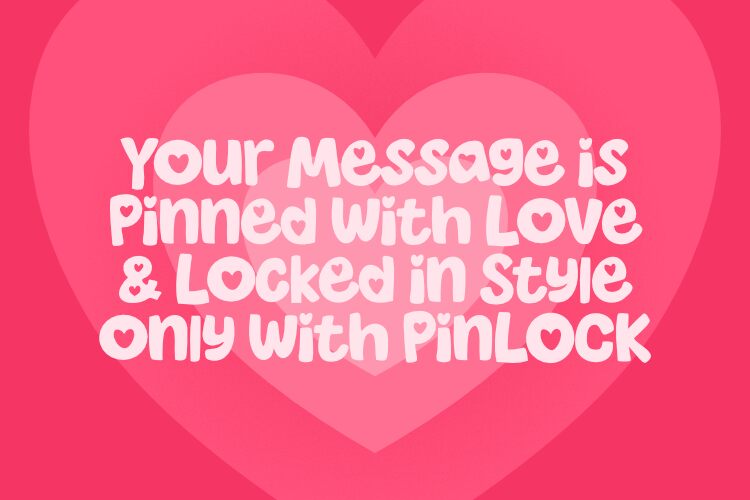
MGF Pinlock font
MGF Pinlock
PINLOCK is a lovely, fun bold font characterized by rounded forms and heart-filled characters. It is the perfect choice for designs that aim to convey a soft, sweet charm, making it ideal for Valentine cards, kid-friendly packaging, and romantic social media posts. With its bubbly structure and playful personality, PINLOCK brings warmth and love to every letter, appealing to cute design enthusiasts, hobby crafters, and professional creatives alike.